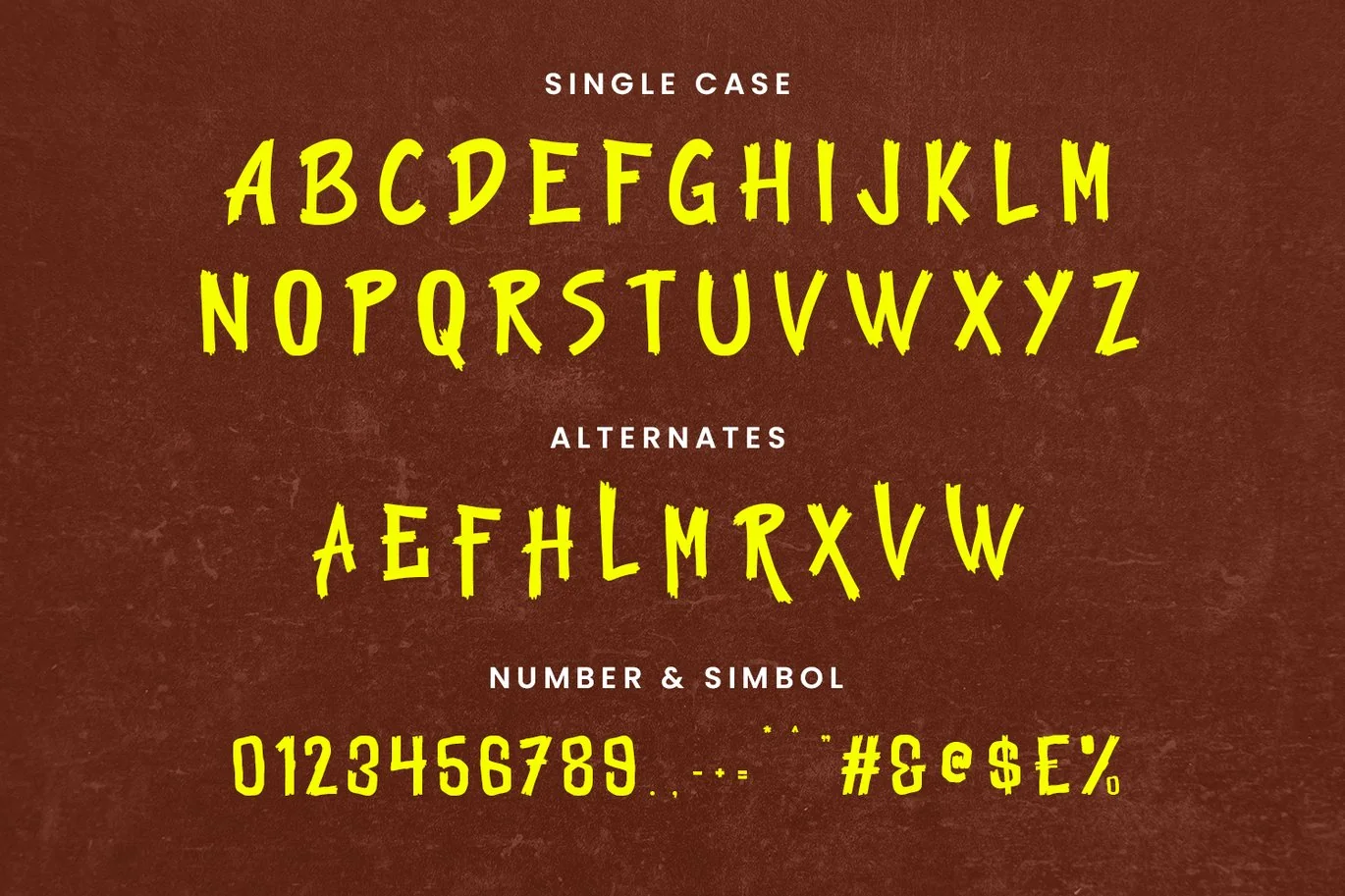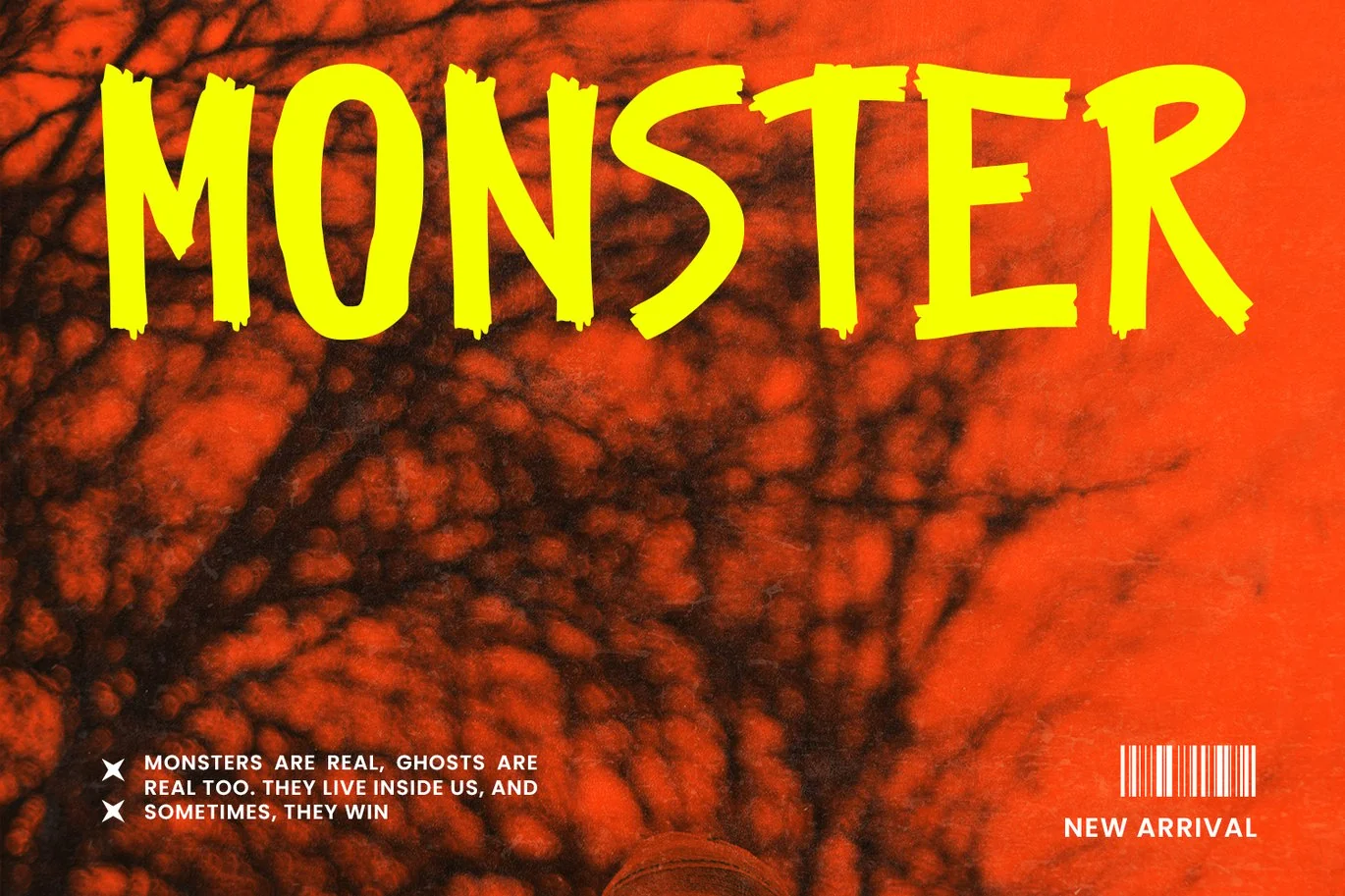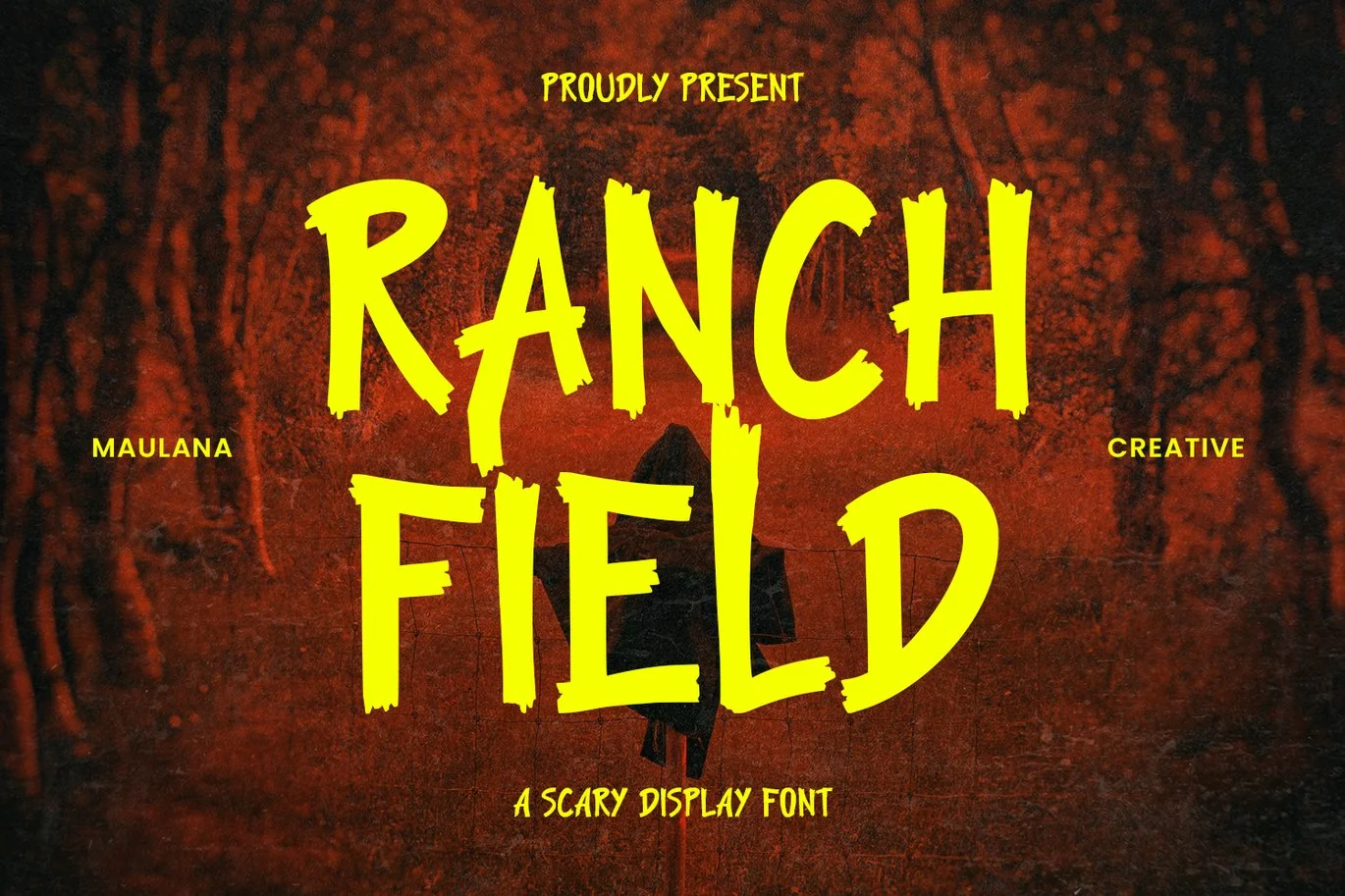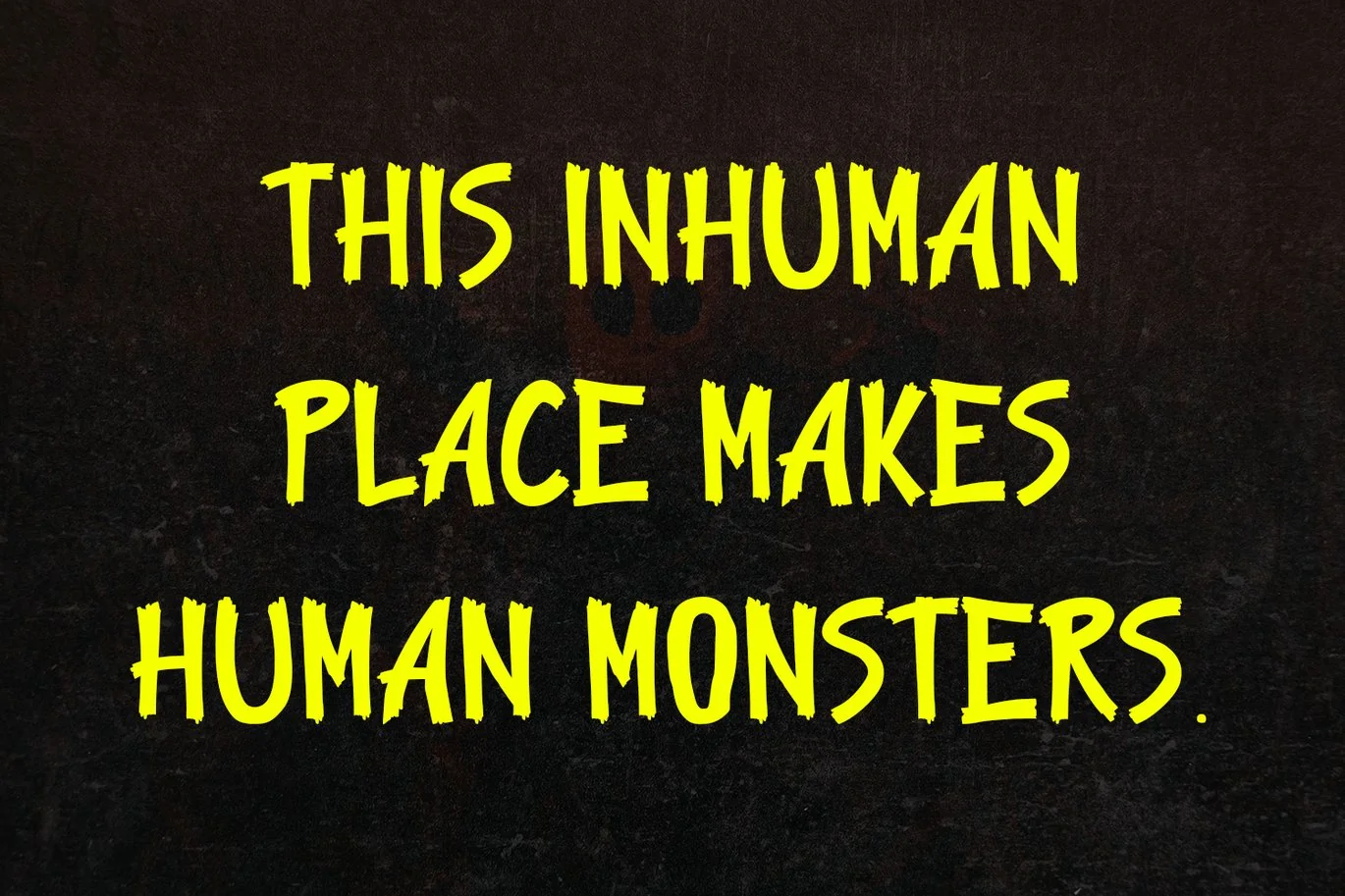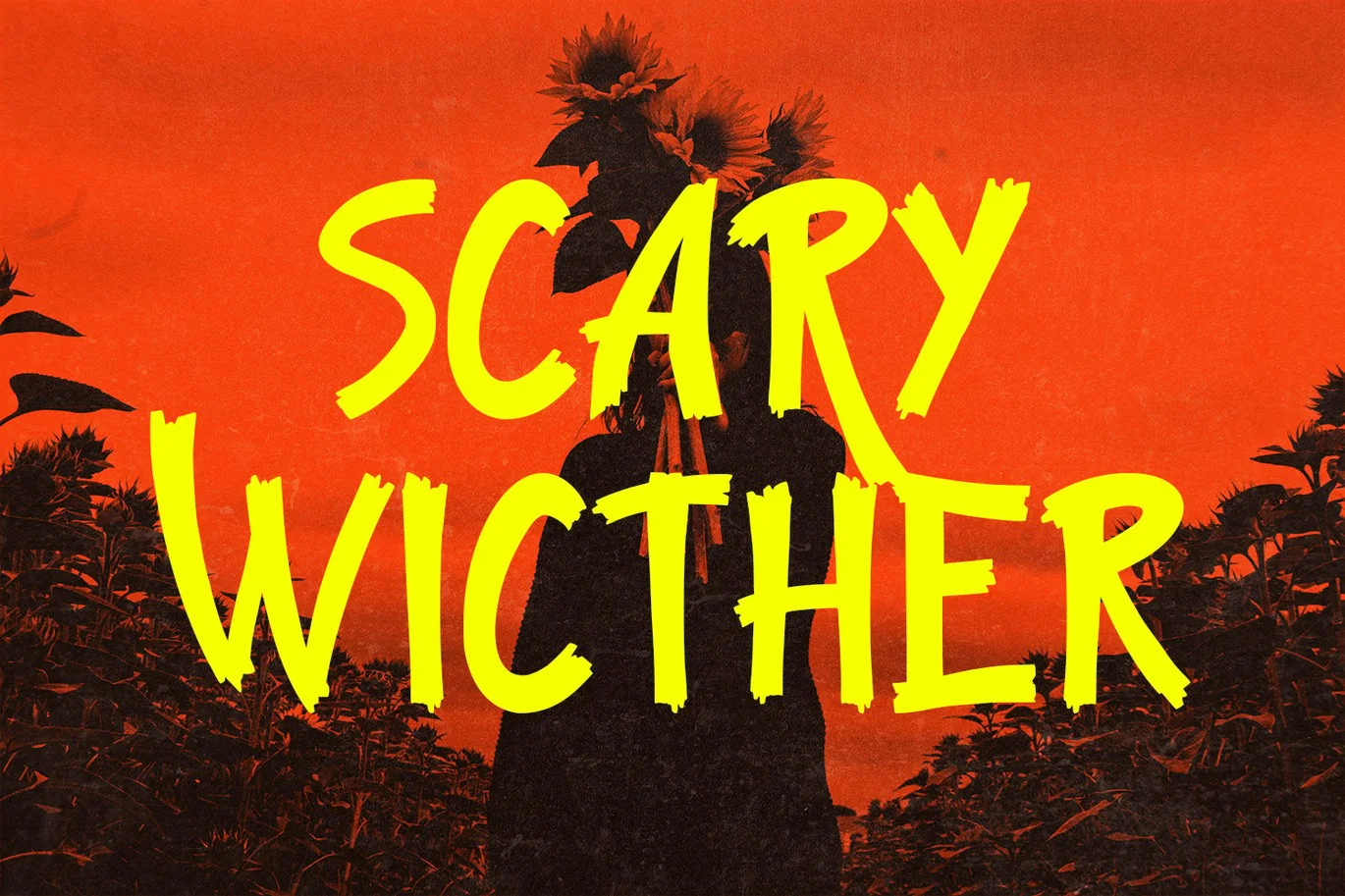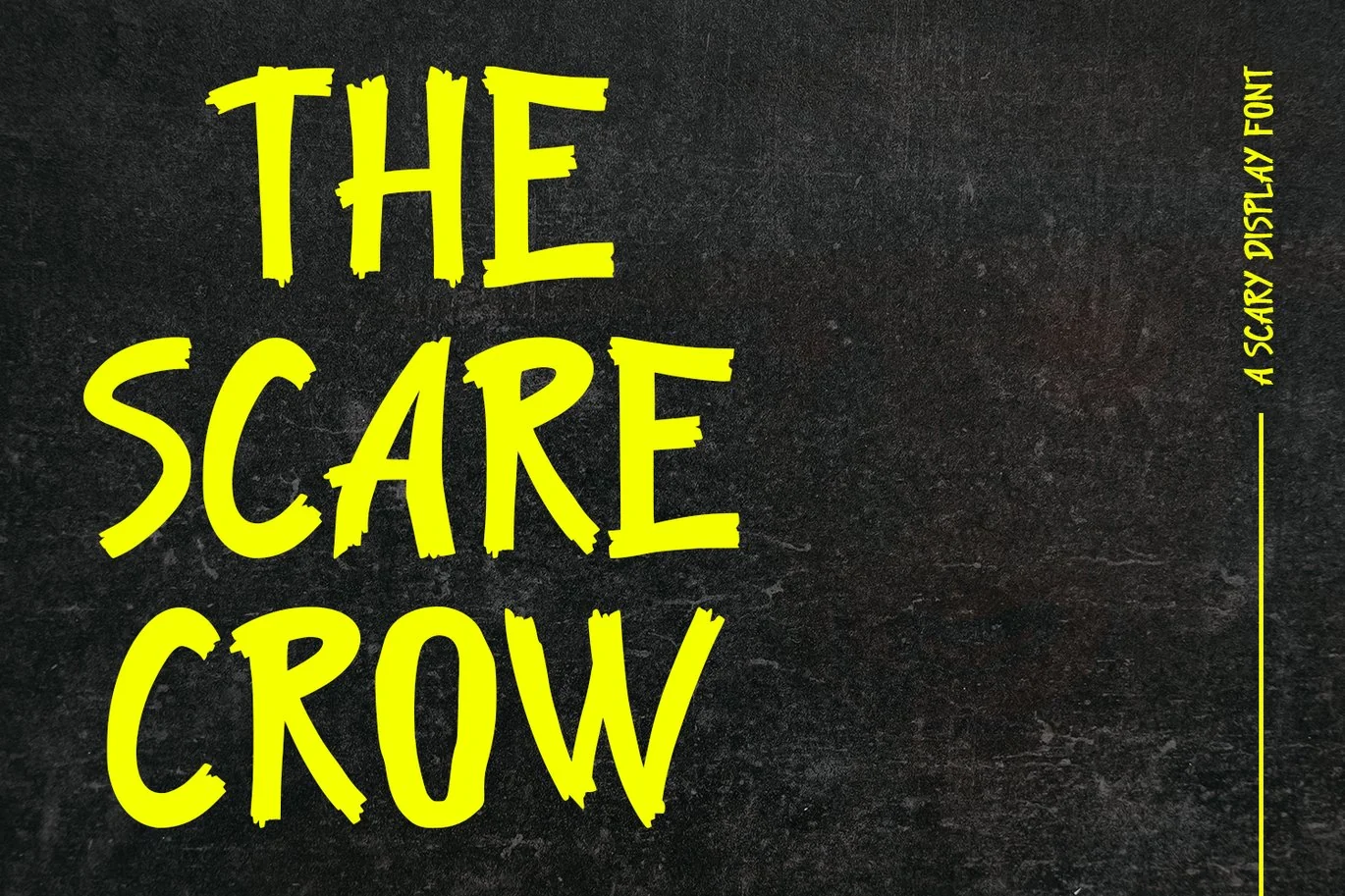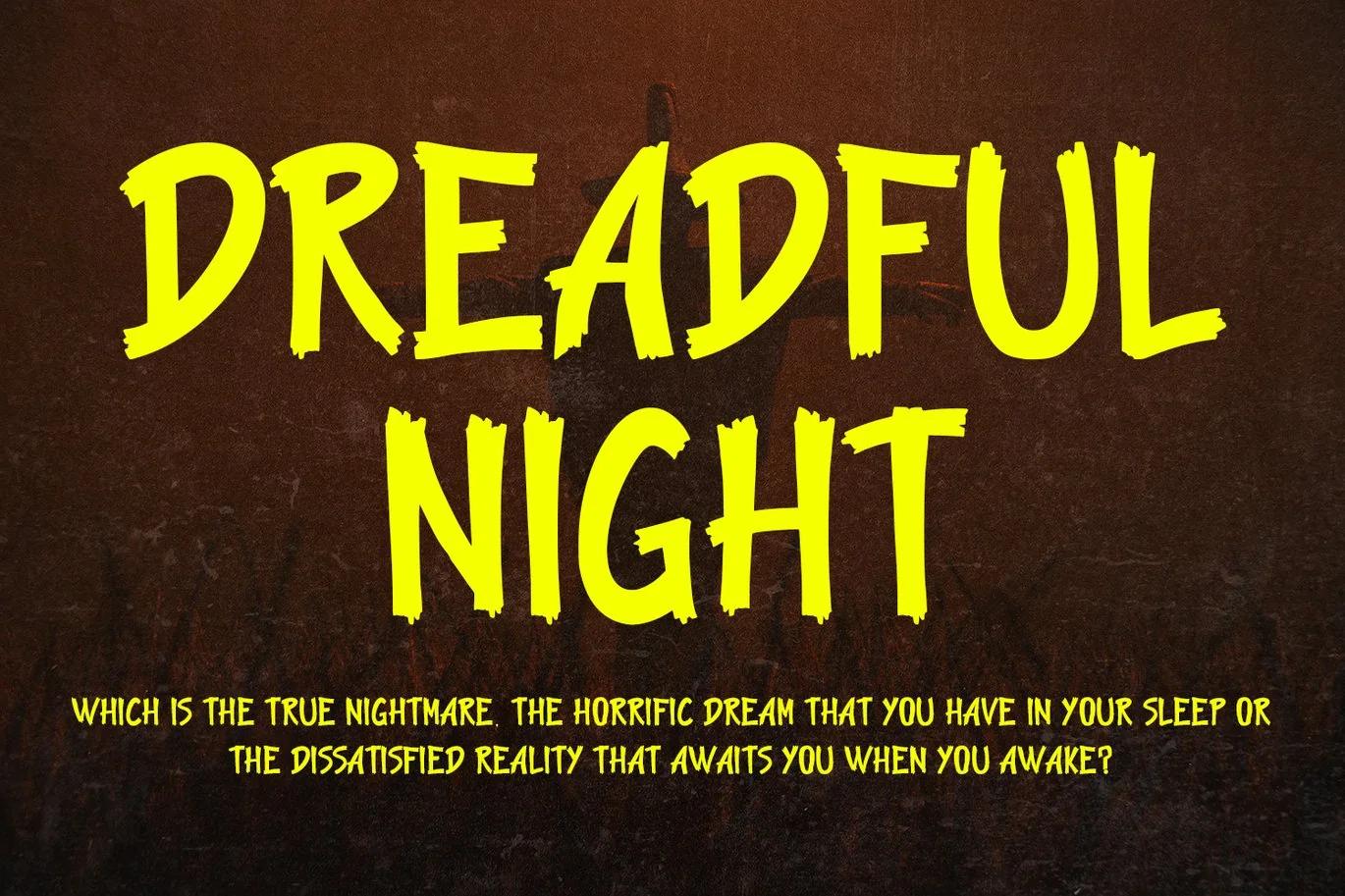
Ranch Field Scary Display Font
Ranch Field is a sans scary display font. Bold stroke, fun character with a bit of ligatures and alternates. To give you an extra creative work. Ranch Field font support multilingual more than 100+ language. This font is good for logo design, Social media, Movie Titles, Books Titles, a short text even a long text letter and good for your secondary text font with script or serif. Make a stunning work with Ranch Field font.